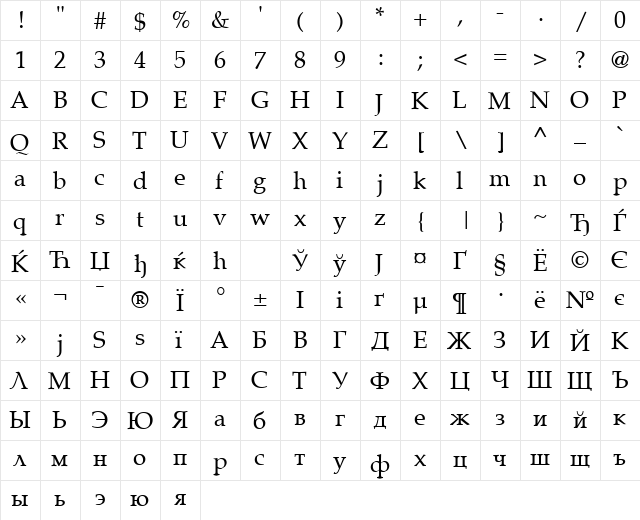
AGPalatial Roman
Design Context for AGPalatial Typeface
AGPalatial is a composed and adaptable typeface that performs quietly and consistently across a wide range of design contexts.